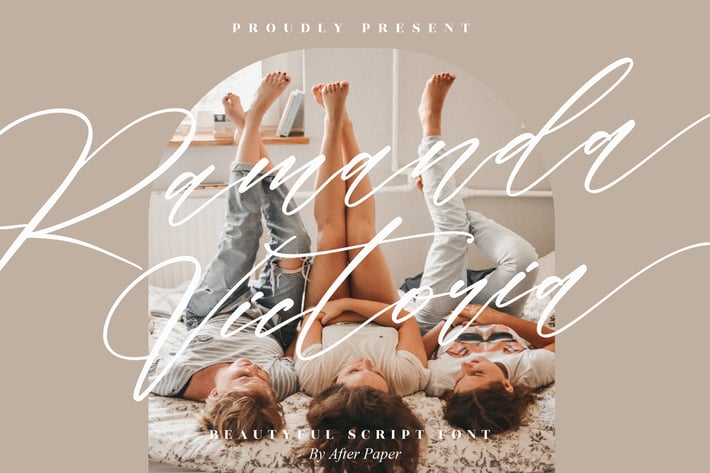
Ramanda Victoria Script Font
Ramanda Victoria is a beautifully flowing script font that captures the elegance and warmth of handwritten calligraphy. Designed with a focus on smooth, curvy lines and fluid strokes, this font is perfect for projects that require a luxurious, personal, or refined touch, such as weddings, branding, or high-end social media posts.
Elegant handwritten script with graceful, fluid strokes
Includes Regular and Italic versions
Perfect for wedding invitations, personal branding, and more
Strong contrast and legibility in both small and large sizes
Multilingual support for global audiences
Wedding invitations and event designs
Personal branding and logo creation
Social media posts and marketing
Custom stationery and calligraphy
Editorial layouts and magazine headlines
Add a personal and luxurious touch to your designs with Ramanda Victoria, a font that brings beauty and elegance to every project.*